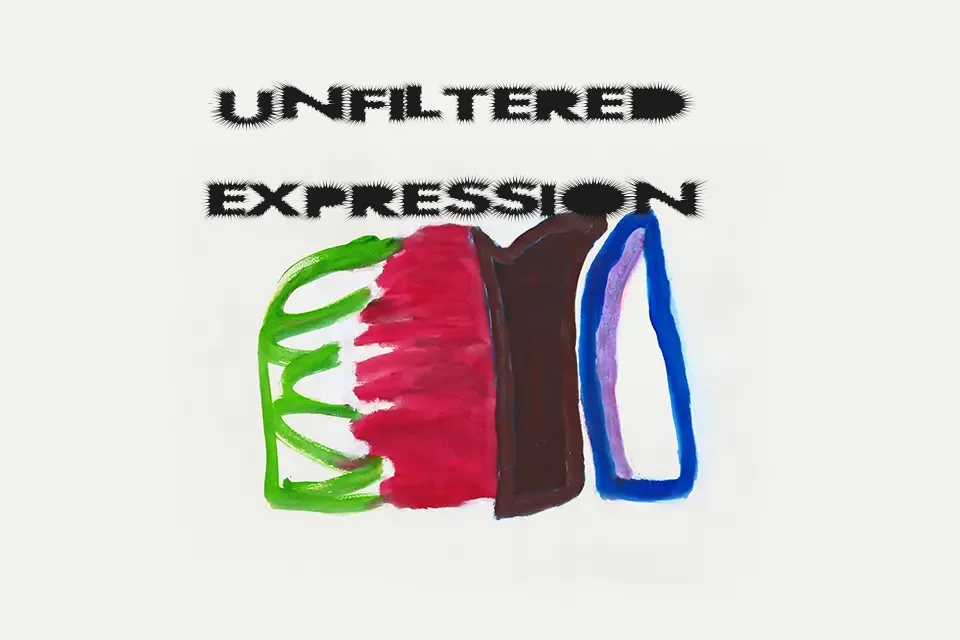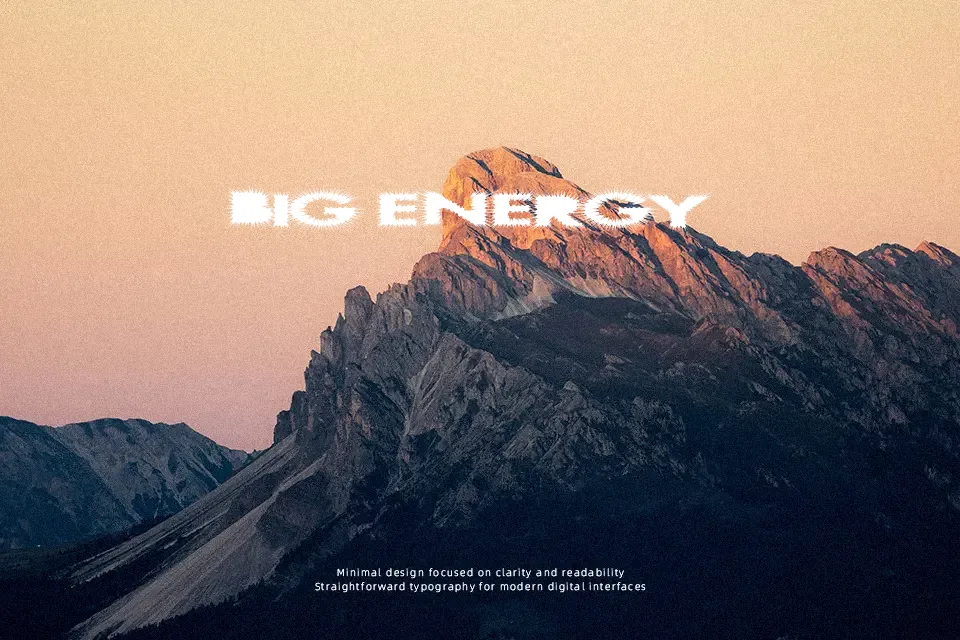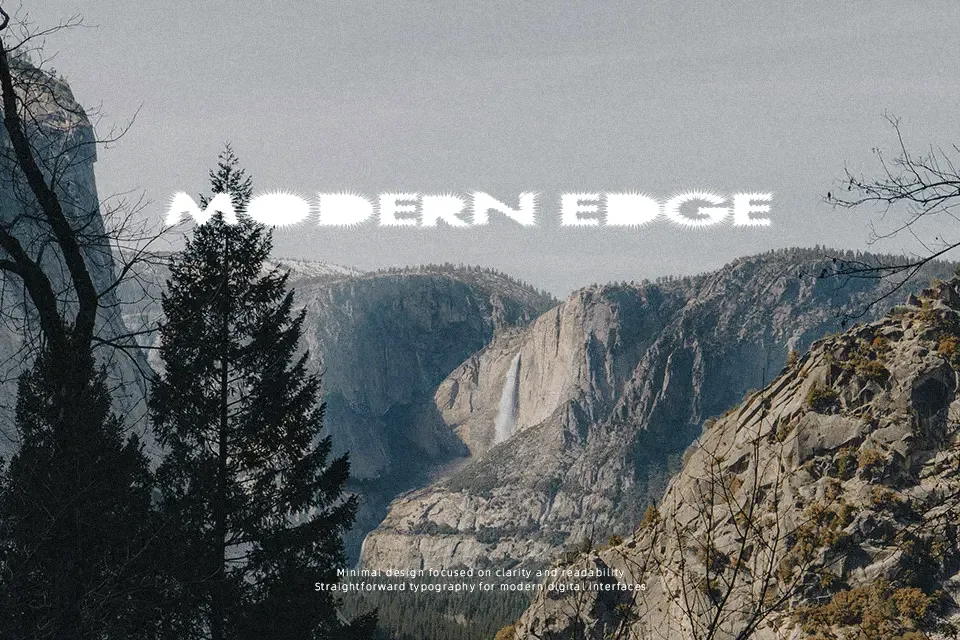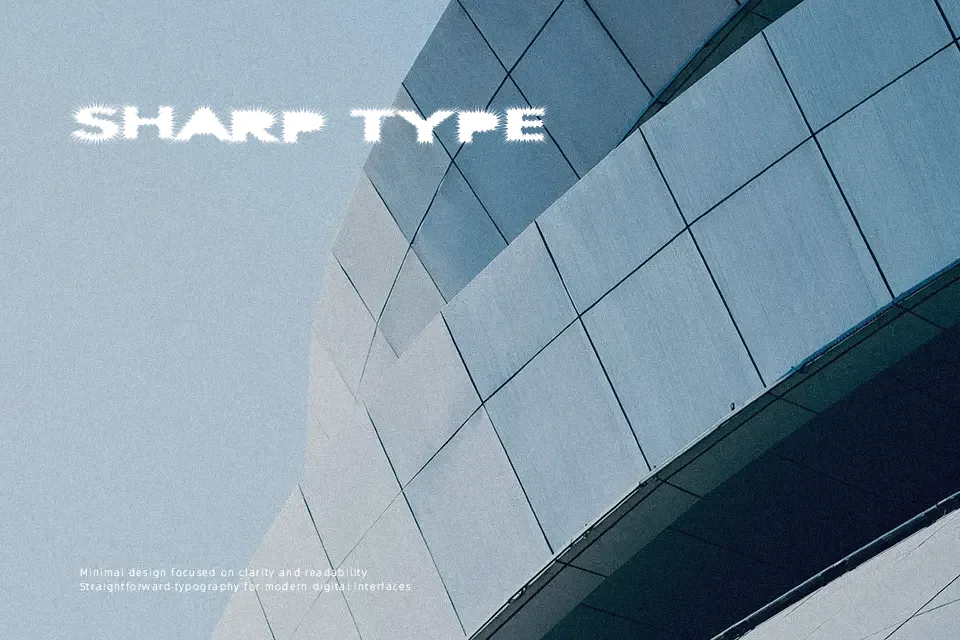
AlienFur Font
Leaning heavily into jagged outlines and fur-like spikes, AlienFur delivers a noisy, textured silhouette that immediately reads as creature-inspired sci-fi. The all-caps forms are chunky, with tight internal spacing and a rough halo of “hair” that makes strokes feel thick and aggressive rather than clean or neutral. This gives posters, haunted attraction signage, and B-movie style artwork a deliberately messy, campy energy that stands out from smoother techno or horror faces. It works best in short headlines where the fuzzy details can stay legible at larger sizes, but falls apart quickly in long paragraphs, small UI labels, or anything that demands clarity and restraint.
horror or halloween event posters
monster or alien themed game logos
campy sci-fi movie titles and cover art
body text or long paragraphs
professional corporate branding or reports
small-size UI labels or app interfaces
clean minimalist editorial layouts
Perfect for film, gaming, and halloween, with a bold and decorative style.